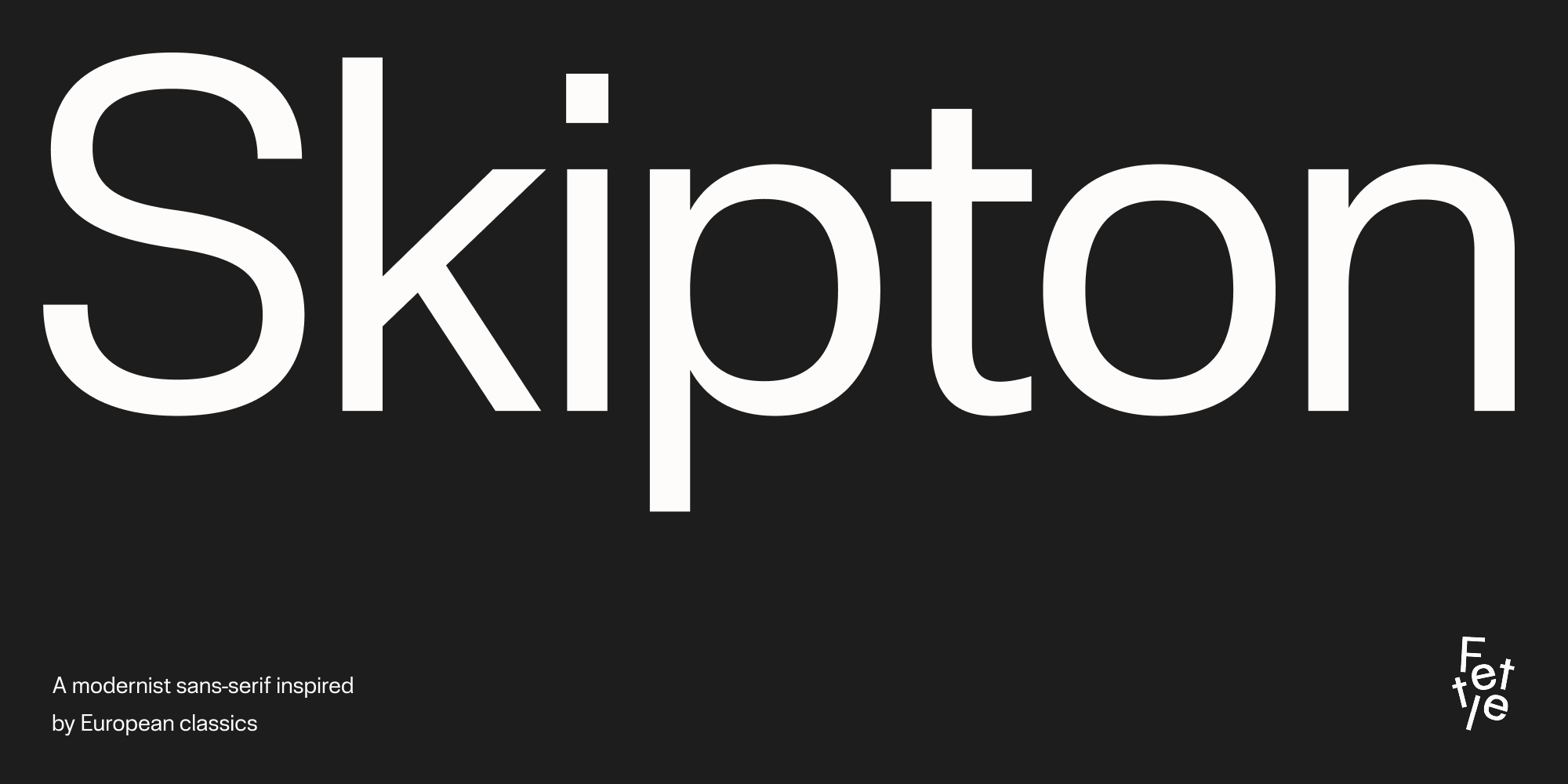
Skipton
Skipton is a sans serif font family. This typeface has twelve styles and was published by Fettle Foundry.
Skipton draws inspiration from European, modernist classics while introducing a smaller X-height, greater contrast, wider glyphs, flatter bowls, more open counters, and subtle flares.
Designed for flexibility and legibility, Skipton is an excellent choice for designers and organisations creating branding, posters, websites, and other design applications that prioritise clarity, readability, and minimalism.
The italics adapt the oblique versions of the uprights, a traditional practice in this style. However, curve compensation and optical corrections have been applied to minimise the effects of sloping, creating a hybrid between obliques and true italics.
Inspired by European designs, Skipton includes an expansive Latin S character set supporting over 380 Latin-based languages. Thorough kerning has also been undertaken, especially between Latin-based, non-Anglophone character combinations, with special ligatures providing accurate multi-lingual typesetting options.
Skipton boasts an impressive 685 glyphs, including tabular figures, localised alternates, ligatures, mathematical symbols, fractions, superiors, inferiors, punctuation, extended currency symbols, arrows, shapes, and various additional elements.
Available in twelve weights (six roman and six italic), Skipton offers the flexibility of a true workhorse without the inclusion of redundant or superfluous weights.